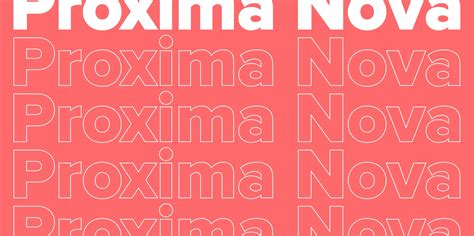
Alternative To Proxima Nova Font. Free alternatives & similar fonts. Web fonts similar to proxima nova.
While there are subtle difference in some of the letterforms. Fresh start geometric sans serif font + web fonts. Web 20+ best fonts similar to proxima nova. Logika nova is an elegant, modern font with a sleek design suitable for various applications like logos, branding, or headlines. Web top 10 proxima nova alternatives gibson avenir closest match on adobe fonts (typekit) * proxima nova the 40 best fonts on adobe fonts closest free alternative on google fonts see my pdf guide. Free alternatives & similar fonts. Web if you enjoyed reading this article about fonts similar to proxima nova, you should check out these articles with fonts similar to bodoni, comic sans, avenir, lato, papyrus, old english, century gothic,. Web fonts similar to proxima nova. If you're looking for a clean sans serif font with plenty of versatility, give this one a shot. Metropolis is the closest free alternative font to proxima nova.
Logika nova is an elegant, modern font with a sleek design suitable for various applications like logos, branding, or headlines. While there are subtle difference in some of the letterforms. Web top 10 proxima nova alternatives gibson avenir closest match on adobe fonts (typekit) * proxima nova the 40 best fonts on adobe fonts closest free alternative on google fonts see my pdf guide. Metropolis is the closest free alternative font to proxima nova. If you're looking for a clean sans serif font with plenty of versatility, give this one a shot. Free alternatives & similar fonts. Web 20+ best fonts similar to proxima nova. Fresh start geometric sans serif font + web fonts. Web fonts similar to proxima nova. Logika nova is an elegant, modern font with a sleek design suitable for various applications like logos, branding, or headlines. Web if you enjoyed reading this article about fonts similar to proxima nova, you should check out these articles with fonts similar to bodoni, comic sans, avenir, lato, papyrus, old english, century gothic,.